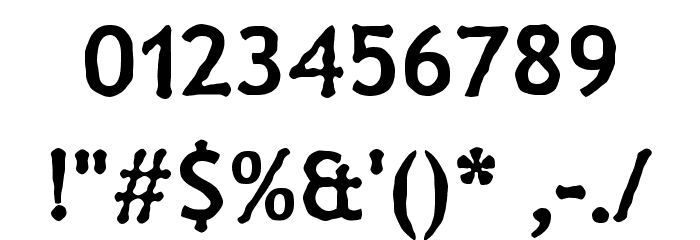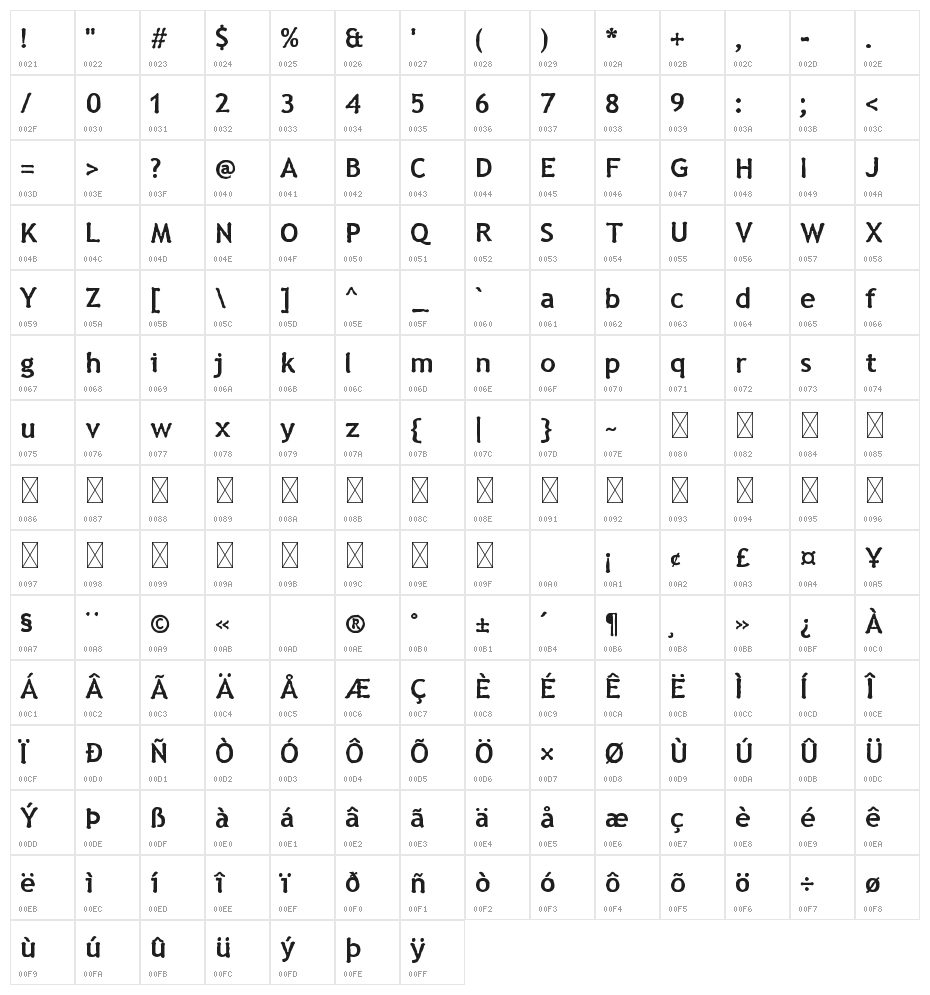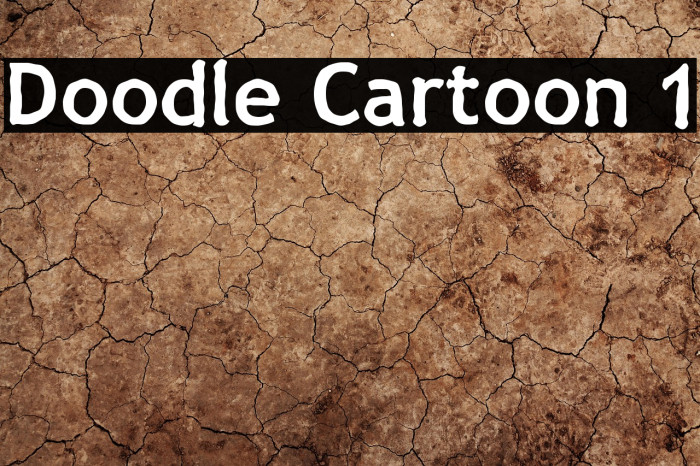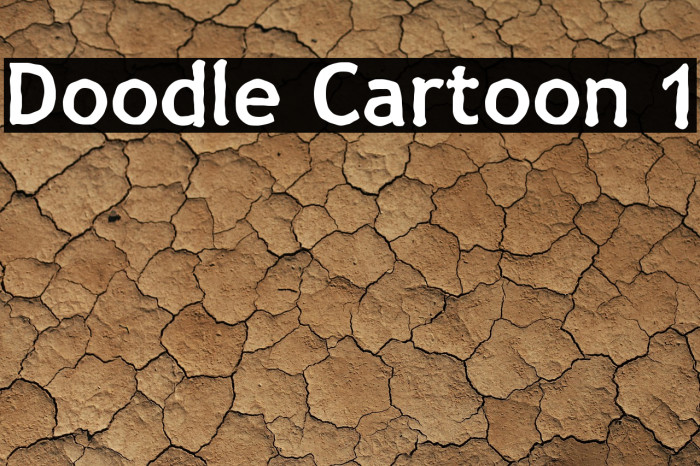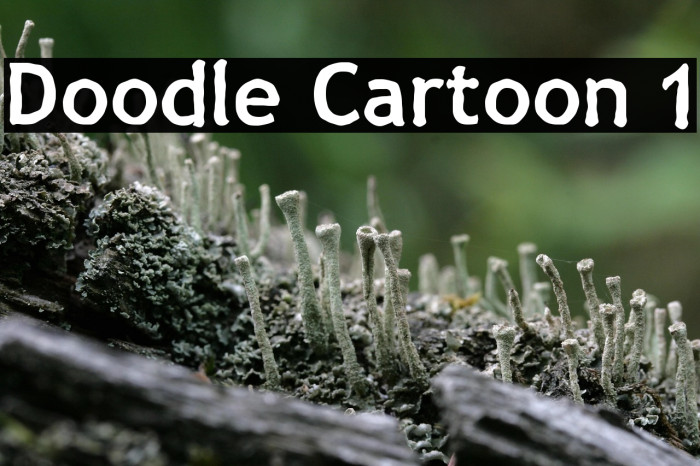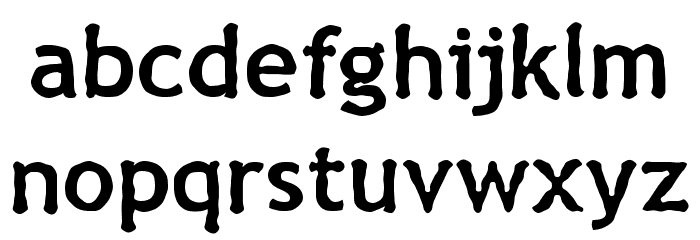
Doodle Cartoon 1 Font
Doodle Cartoon 1 Description
This playful and whimsical font features a hand-drawn, cartoonish style that exudes a sense of fun and creativity. The characters are bold and slightly irregular, giving them a lively and dynamic appearance. The strokes are thick and rounded, adding to the casual and approachable feel of the font. It captures the essence of doodles, making it perfect for projects that require a lighthearted and informal touch. The font maintains good legibility despite its quirky design, making it versatile for various applications.
| Proposed Projects | Ideal for children's books, comic strips, playful branding, and creative posters. |